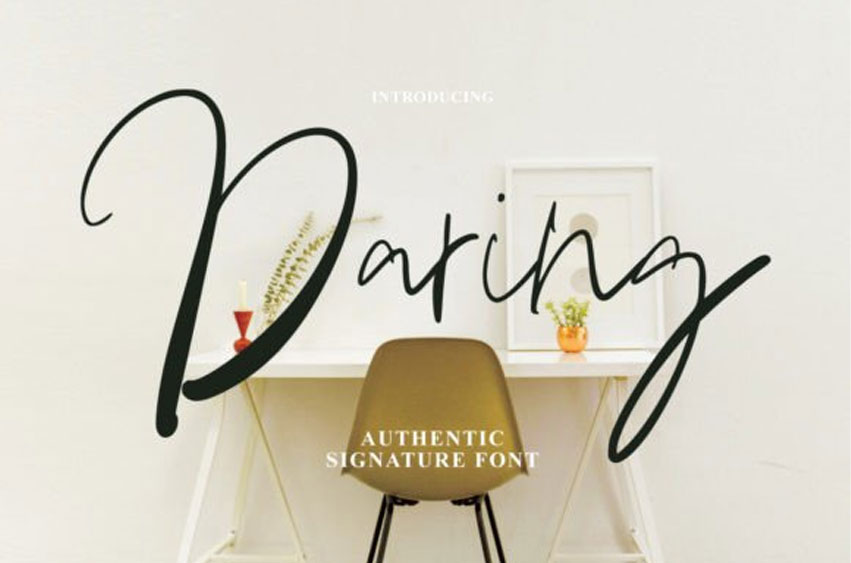
Daring Font
Daring Font Signature with a handmade Signature style, decorative characters, and a dancing baseline!
So beautiful on invitations like greeting cards, branding materials, business cards, quotes, posters, and more!!